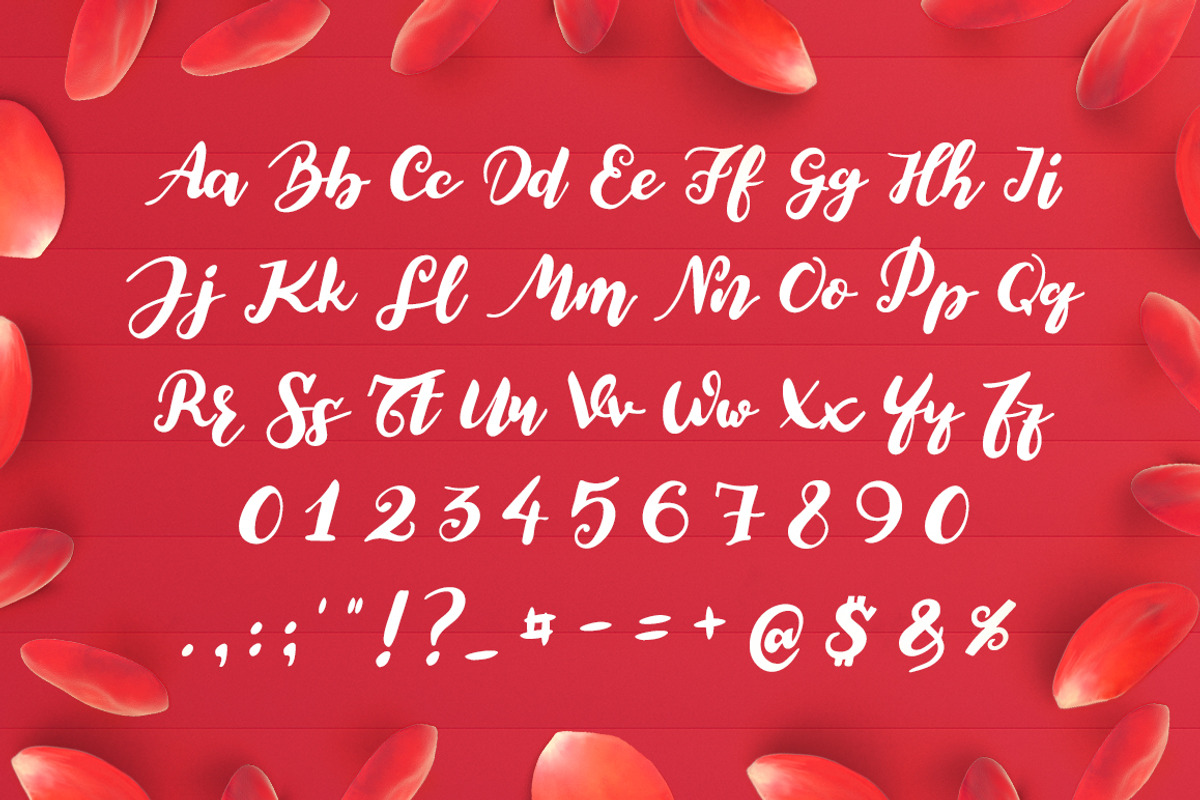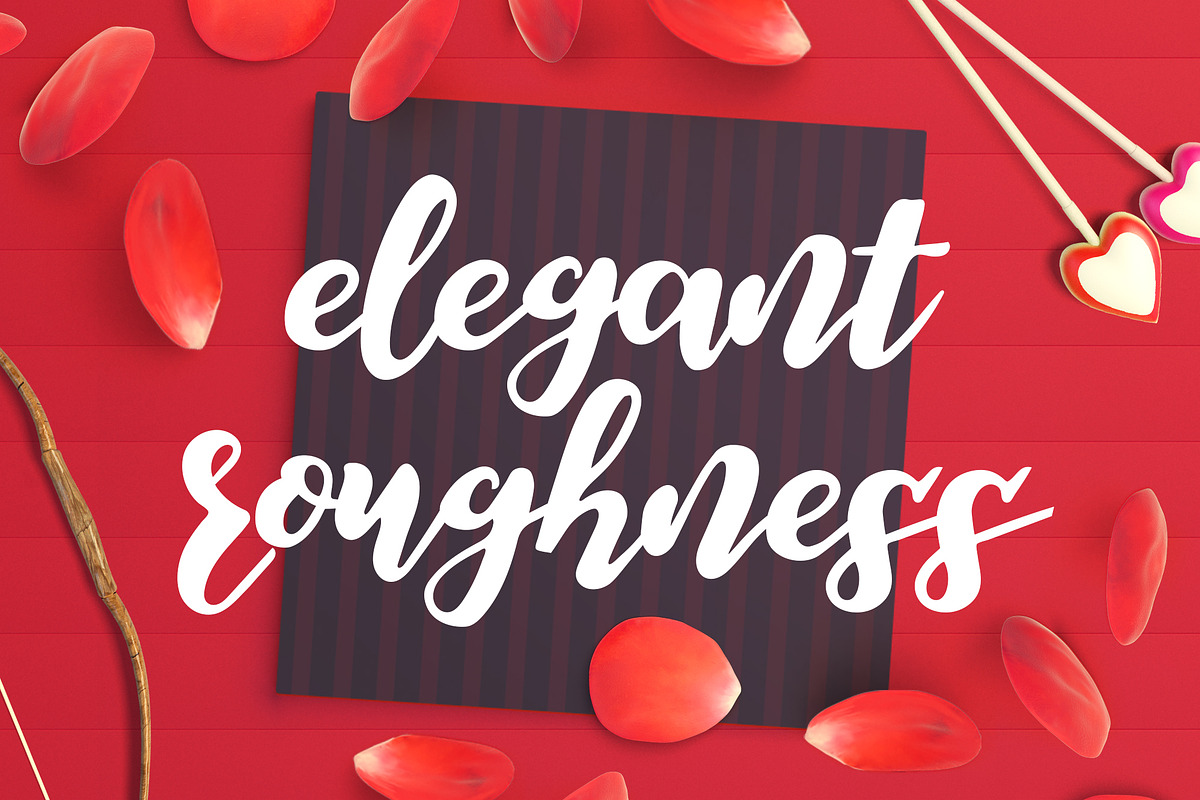
Elegant Roughness Font
Elegant Roughness Font by Bogdan Casota is a font selected for branding, posters, packaging, typography.
- Font comes with basic English alphabet, numbers and a couple of basic punctuation marks.
Why Elegant Roughness Font is worth a look
Elegant Roughness Font by Bogdan Casota fits naturally into Branding, posters, packaging, typography.